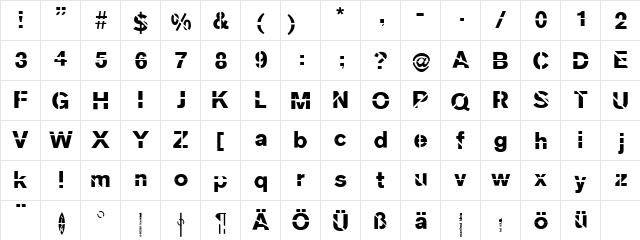
SansKleinCut Regular
Design Context for SansKleinCut Typeface
SansKleinCut takes a measured approach to typography — its balanced proportions and neutral character make it a reliable workhorse for both digital and print work.